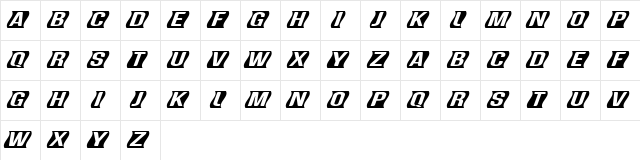
Genghis Khan framed Med Bold Italic Font Preview
Design Context for Genghis Khan framed Med Typeface
Genghis Khan framed Med is a composed and adaptable typeface that performs quietly and consistently across a wide range of design contexts. The dynamic lean of this cut emphasises speed and emphasis in any layout. Its bold stroke weight gives it real presence on the page.
Pro Tip: Try Genghis Khan framed Med for annotation and caption copy alongside an upright companion — the contrast in angle creates a dynamic but ordered typographic system.